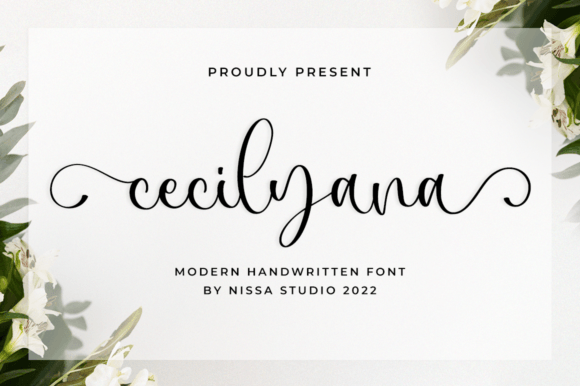
Cecilyana Font: Elevate Your Designs with Elegance and Sophistication
In the world of typography, a beautiful script font can make all the difference in elevating your designs to the next level. Introducing Cecilyana, a stunning script font that exudes refinement and sophistication. With its elegant and modern style, Cecilyana is the perfect addition to any creative project, from logos and branding to invitations, stationery, wedding designs, and social media posts.
The Beauty of Cecilyana
Cecilyana is a masterfully crafted script font that boasts a unique and refined style. Its flowing lines, intricate details, and beautiful swashes make it a true standout in the world of typography. Whether you’re looking to create a luxurious brand identity, a romantic wedding invitation, or a stylish social media post, Cecilyana is the perfect choice.
One of the key features that sets Cecilyana apart is its PUA (Private Use Area) encoding. This means that you can access all glyphs and swashes with ease, giving you unparalleled creative control over your designs. With Cecilyana, you can effortlessly add flourishes, ligatures, and other special characters to make your designs truly unique.
Cecilyana is an incredibly versatile font that can be used in a wide range of design applications. Here are just a few ideas to get you started:
- Logos and Branding: Create a luxurious and sophisticated brand identity with Cecilyana. Its elegant style makes it perfect for high-end brands, fashion labels, and lifestyle companies.
- Invitations and Stationery: Add a touch of elegance to your invitations, greeting cards, and stationery with Cecilyana. Its refined style makes it perfect for formal events, weddings, and parties.
- Wedding Designs: Make your wedding designs truly unforgettable with Cecilyana. Use it to create beautiful wedding invitations, programs, and decorations.
- Social Media Posts: Elevate your social media posts with Cecilyana’s elegant style. Use it to create stunning graphics, quotes, and promotions that will leave your followers in awe.
Why Choose Cecilyana?
With so many script fonts on the market, why choose Cecilyana? Here are just a few reasons why Cecilyana stands out from the crowd:
- Unique and Refined Style: Cecilyana boasts a truly unique and refined style that will set your designs apart from the rest.
- PUA Encoded: With PUA encoding, you can access all glyphs and swashes with ease, giving you unparalleled creative control over your designs.
- High-Quality Design: Cecilyana is designed with high-quality and precision in mind, ensuring that your designs look stunning and professional.
- Easily Readable: Despite its elegant style, Cecilyana is still easily readable, making it perfect for body text and longer designs.
Get Creative with Cecilyana
- Experiment with Glyphs and Swashes: Use Cecilyana’s PUA encoding to access all glyphs and swashes. Experiment with different combinations to create unique and stunning designs.
- Pair with Other Fonts: Cecilyana pairs beautifully with other fonts. Experiment with different pairings to create visually appealing and harmonious designs.